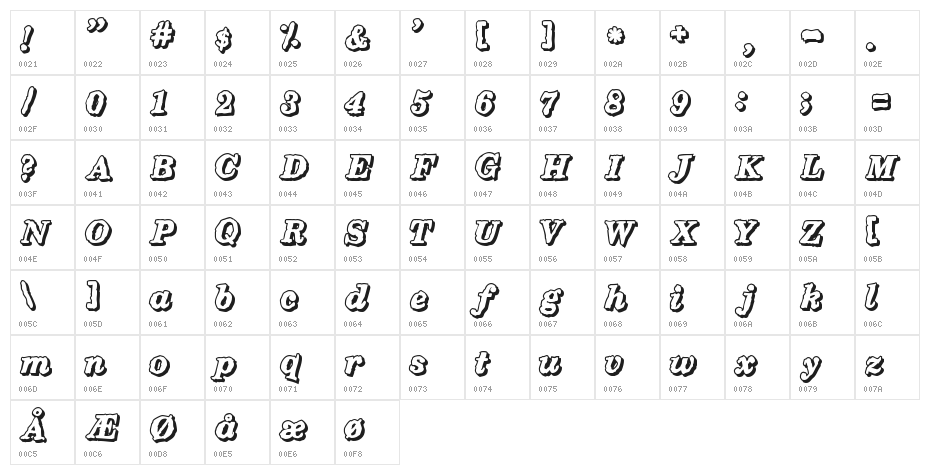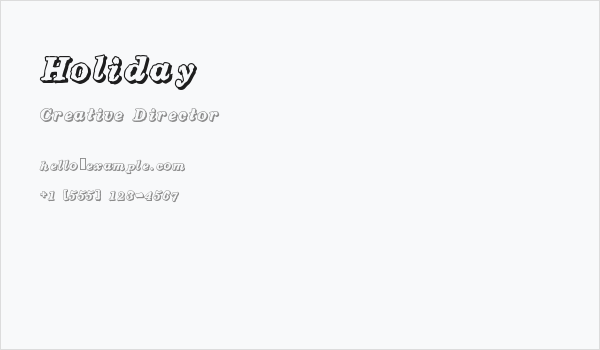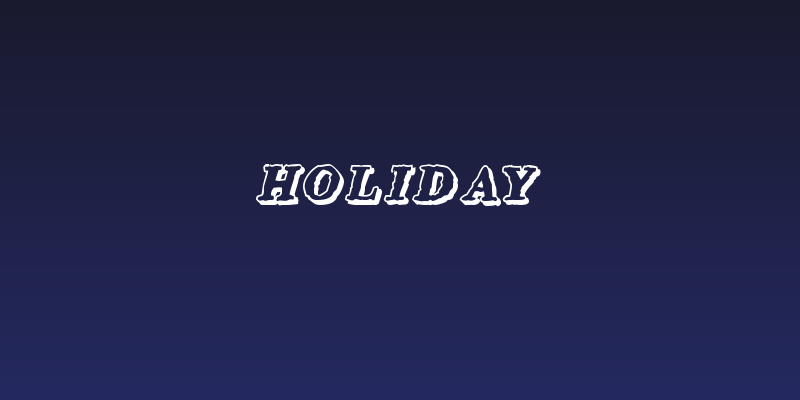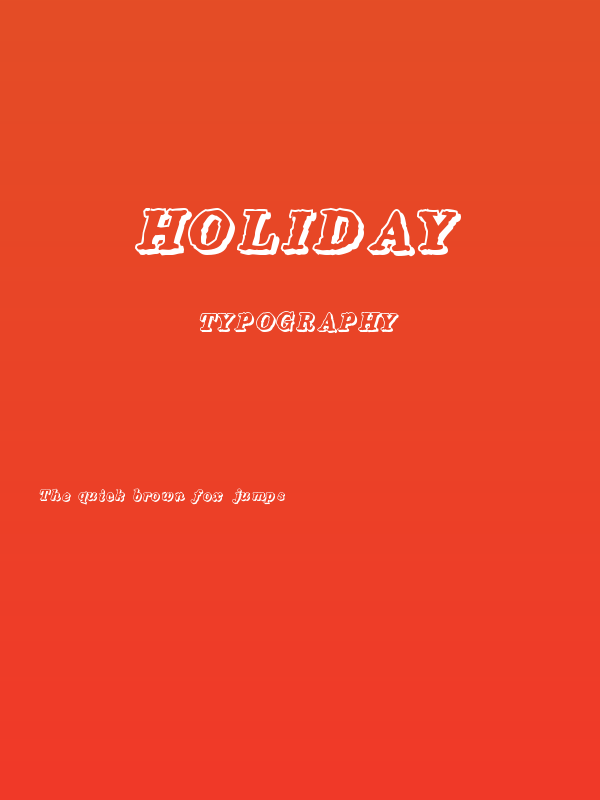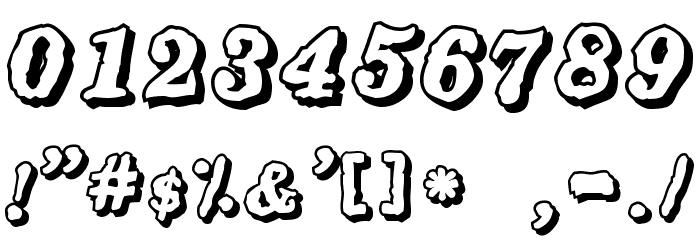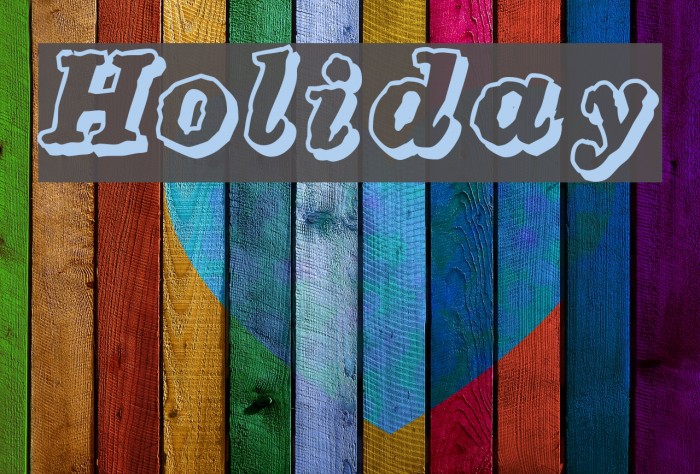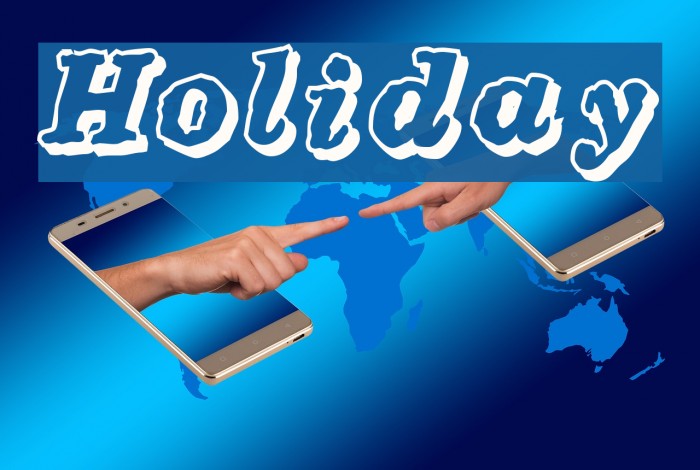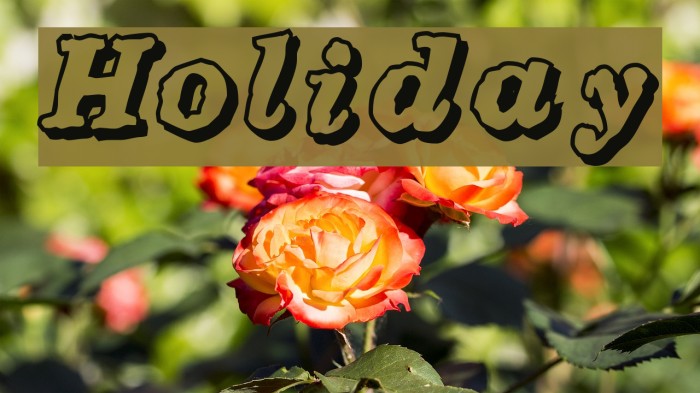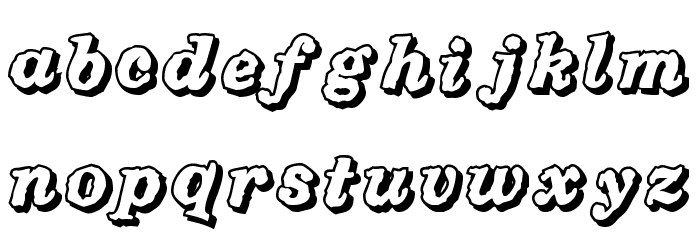
Holiday Font
Holiday Description
This font features a bold and playful design with a three-dimensional effect, achieved through a shadow that gives depth to each character. The letters are rounded and slightly condensed, adding a touch of whimsy and fun. The uppercase and lowercase letters maintain a consistent style, with smooth curves and a uniform thickness that enhances readability. The numbers and special characters follow the same design principles, making the font versatile for various uses. Its unique style makes it stand out, perfect for projects that require a lively and engaging typeface.
| Width | Condensed |
| Overall Style | Playful, Decorative |
| Proposed Projects | Ideal for holiday-themed designs, children's books, playful branding, and eye-catching posters. |